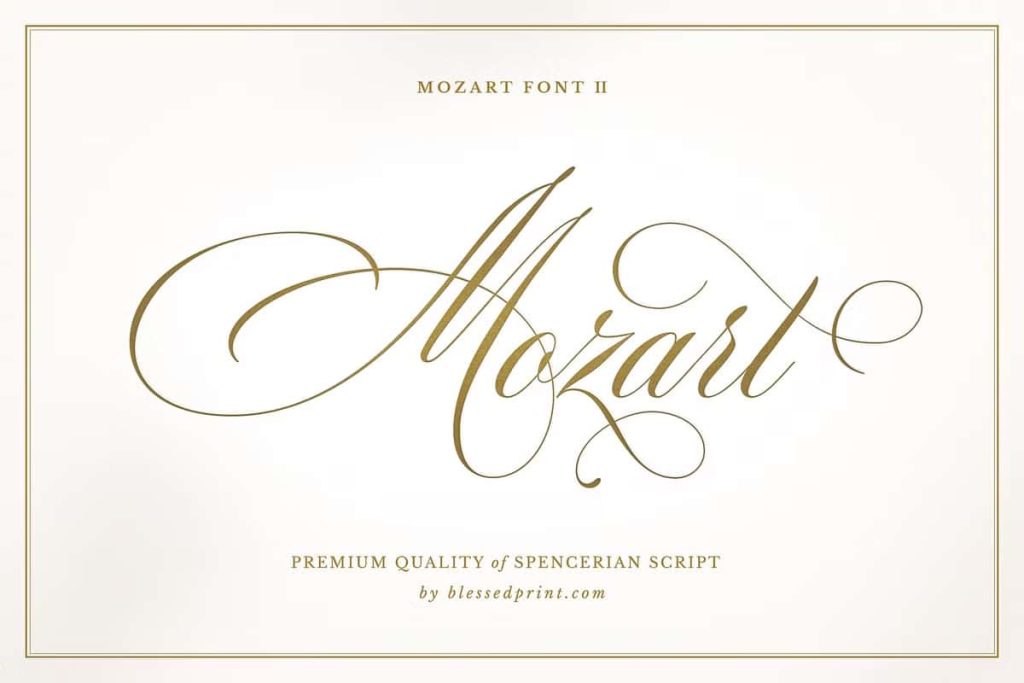
Mozart Script II Basic Version
Mozart Script II – Basic Version is an elegant calligraphy typeface that reimagines one of the most beloved handwriting fonts with refined craftsmanship and modern versatility. Inspired by the timeless beauty of early American penmanship, this updated edition preserves the graceful flow of Spencerian script while incorporating the precision and sophistication of traditional Copperplate calligraphy.
Designed for creatives who appreciate classic lettering with contemporary functionality, Mozart Script II introduces fresh stylistic alternates, beautifully refined swashes, and workflow improvements that make designing with elegant calligraphy easier than ever. The result is a font that captures the romance of historical handwriting while meeting the demands of today’s branding, editorial, invitation, and digital design projects.
Whether you are creating luxurious wedding invitations, premium brand identities, elegant logos, or sophisticated editorial layouts, Mozart Script II provides the perfect balance between traditional calligraphy and modern design efficiency.
Inspired by Classic Spencerian and Copperplate Calligraphy
Mozart Script II pays tribute to two of the most respected calligraphic traditions in typography. The flowing elegance of Spencerian handwriting brings natural rhythm and graceful movement, while the structured precision of Copperplate lettering introduces refined balance and professional consistency.
Every character has been carefully crafted to preserve the authentic beauty of handwritten calligraphy. Smooth connecting strokes, balanced proportions, and delicate curves create typography that feels genuine, sophisticated, and timeless.
This harmonious combination allows designers to achieve the luxurious appearance of handcrafted lettering without sacrificing flexibility or consistency.
An Elegant Evolution of a Beloved Typeface
Building upon the success of the original Mozart Script, this Basic Version enhances the font family with carefully refined improvements while maintaining the elegant personality that designers have come to appreciate. Rather than completely redesigning the typeface, Mozart Script II thoughtfully modernizes its features to provide greater creative freedom and smoother design workflows.
The result is a polished script font that retains its historical inspiration while offering improved functionality for today’s professional creative environments.
Fresh Alternates for Greater Creative Freedom
One of the standout features of Mozart Script II is its expanded collection of stylistic alternates. These alternate characters allow designers to customize words naturally, reducing repetition and creating typography that closely resembles authentic hand lettering.
By mixing alternate letterforms throughout your text, you can create elegant logos, invitations, monograms, and branding materials that feel uniquely crafted instead of mechanically typeset.
Beautiful Refined Swashes
Mozart Script II includes carefully refined swashes that enhance the elegance of every composition. These decorative flourishes provide sophisticated finishing touches to words, titles, signatures, and invitations without overwhelming the overall design.
Designers can use swashes selectively to emphasize names, headlines, logos, or decorative typography while maintaining excellent balance throughout the layout. These ornamental details add luxury and personality to every creative project.
Designed for Modern Creative Workflows
Although deeply rooted in historical penmanship, Mozart Script II has been optimized for modern design software and contemporary production workflows. The font allows creative professionals to produce elegant calligraphy efficiently while maintaining professional-quality results across print and digital media.
Whether you are working on branding projects, wedding stationery, packaging, websites, or editorial layouts, Mozart Script II integrates seamlessly into professional design processes.
Perfect for Branding and Luxury Identity Design
Elegant typography plays a crucial role in premium branding, and Mozart Script II delivers a sophisticated visual identity that reflects quality, craftsmanship, and exclusivity. Its graceful handwriting style makes businesses appear more refined while creating memorable brand experiences.
The font performs beautifully across luxury branding projects where timeless elegance and handcrafted aesthetics are essential.
Recommended Branding Applications
- Luxury logos
- Fashion branding
- Beauty product packaging
- Jewelry branding
- Personal branding
- Boutique business identities
- Premium stationery
- Cosmetic packaging
- Lifestyle brands
Ideal for Wedding and Event Stationery
Mozart Script II naturally complements wedding invitations, save-the-date cards, menus, seating charts, thank-you cards, certificates, and elegant event materials. Its graceful letterforms bring warmth and sophistication to every printed piece while creating an unforgettable first impression.
Mozart Script II Basic Version is a beautifully refined calligraphy font that celebrates the elegance of Spencerian handwriting and the precision of Copperplate lettering. Featuring graceful letterforms, fresh stylistic alternates, refined swashes, and modern workflow enhancements, it provides exceptional versatility for branding, wedding invitations, editorial design, logos, packaging, and countless other creative applications. Whether you are designing sophisticated visual identities or elegant printed materials, Mozart Script II helps every project communicate timeless beauty, craftsmanship, and professional excellence.